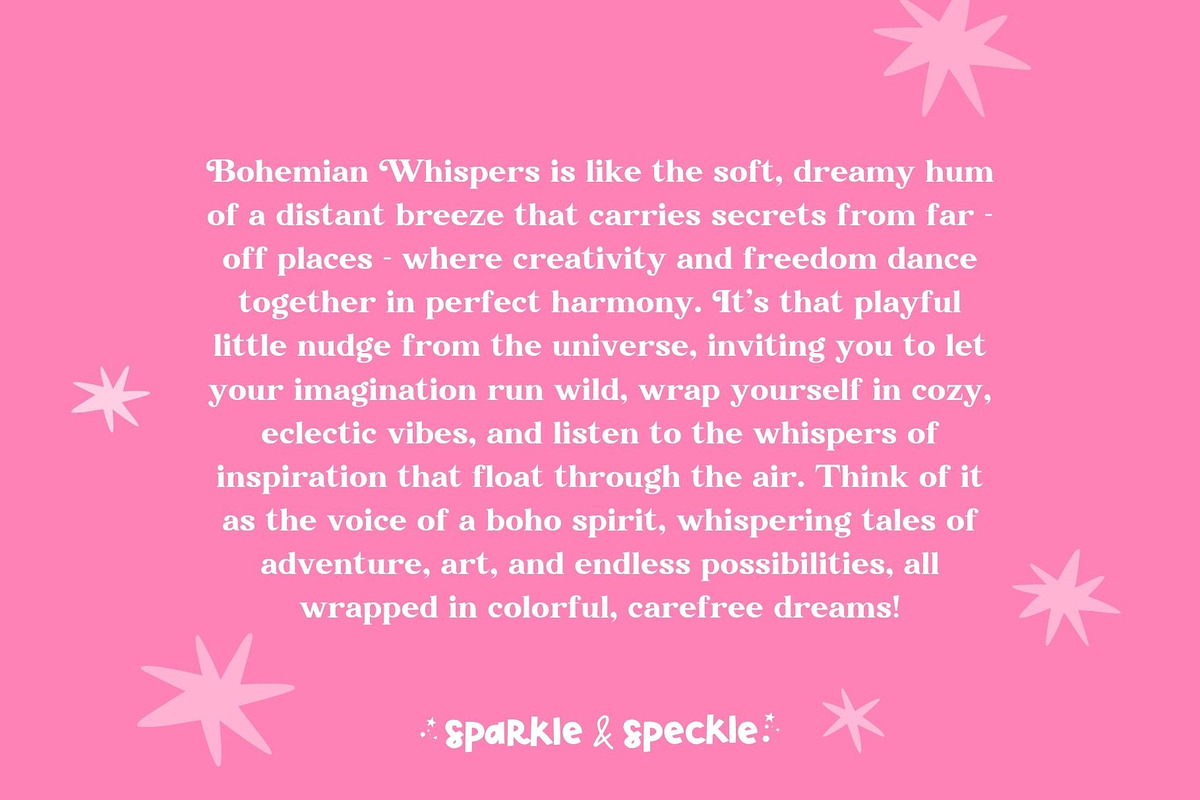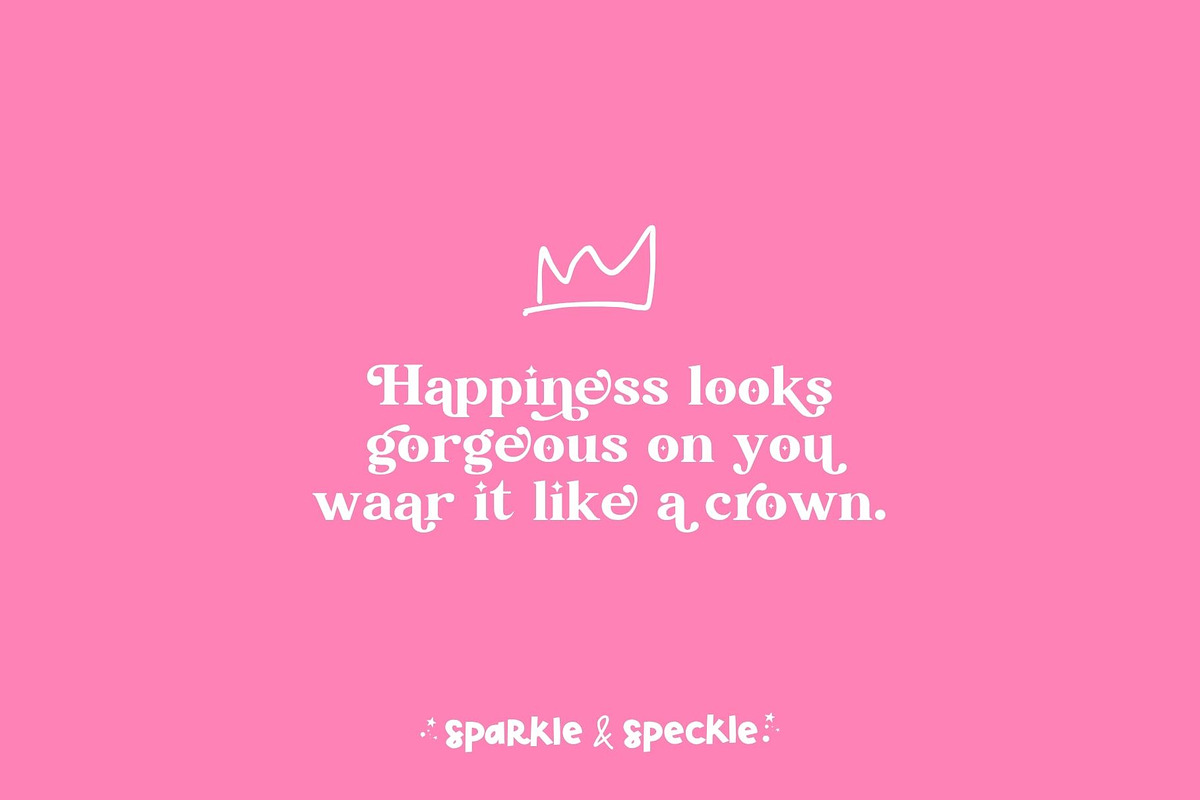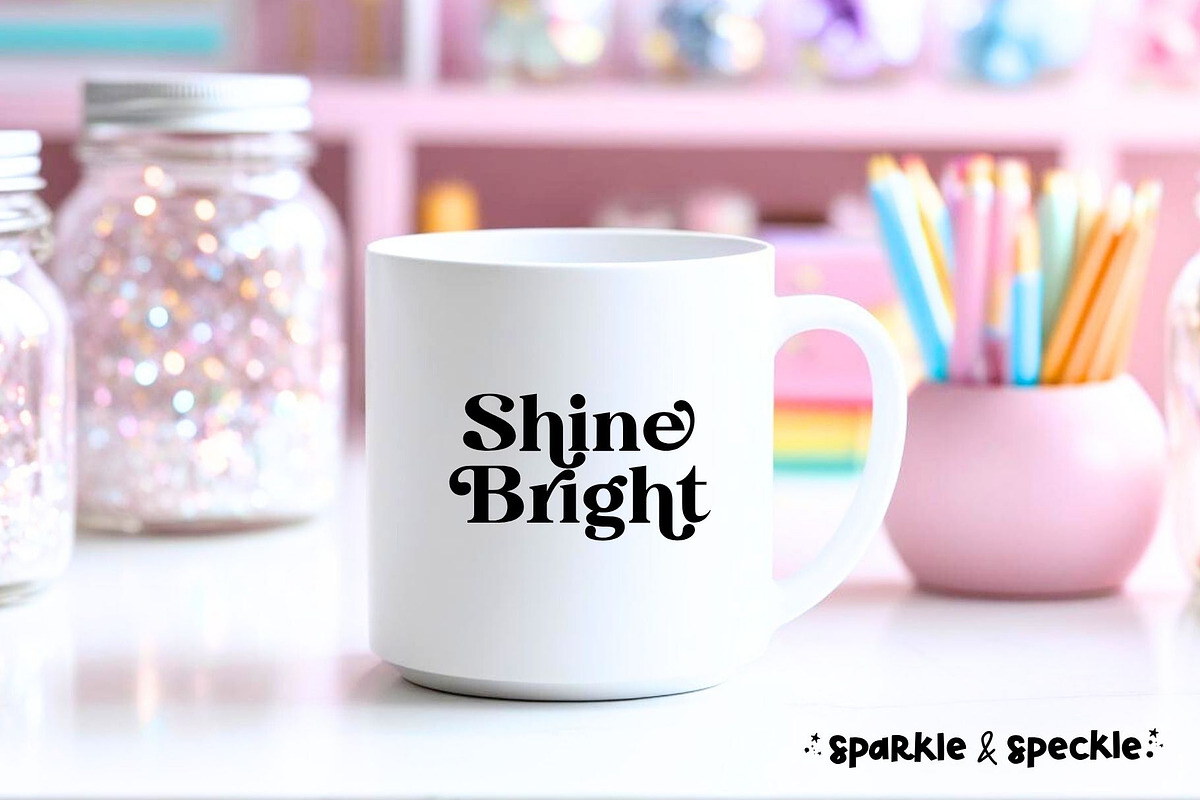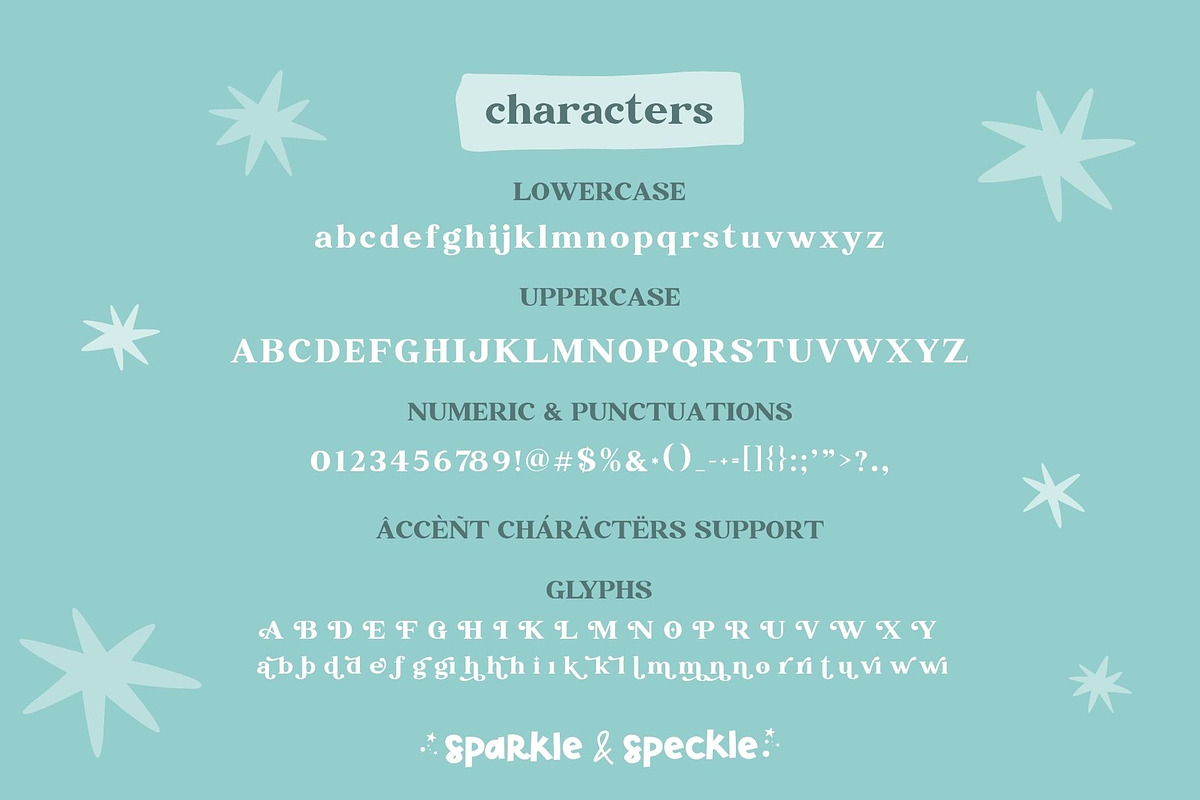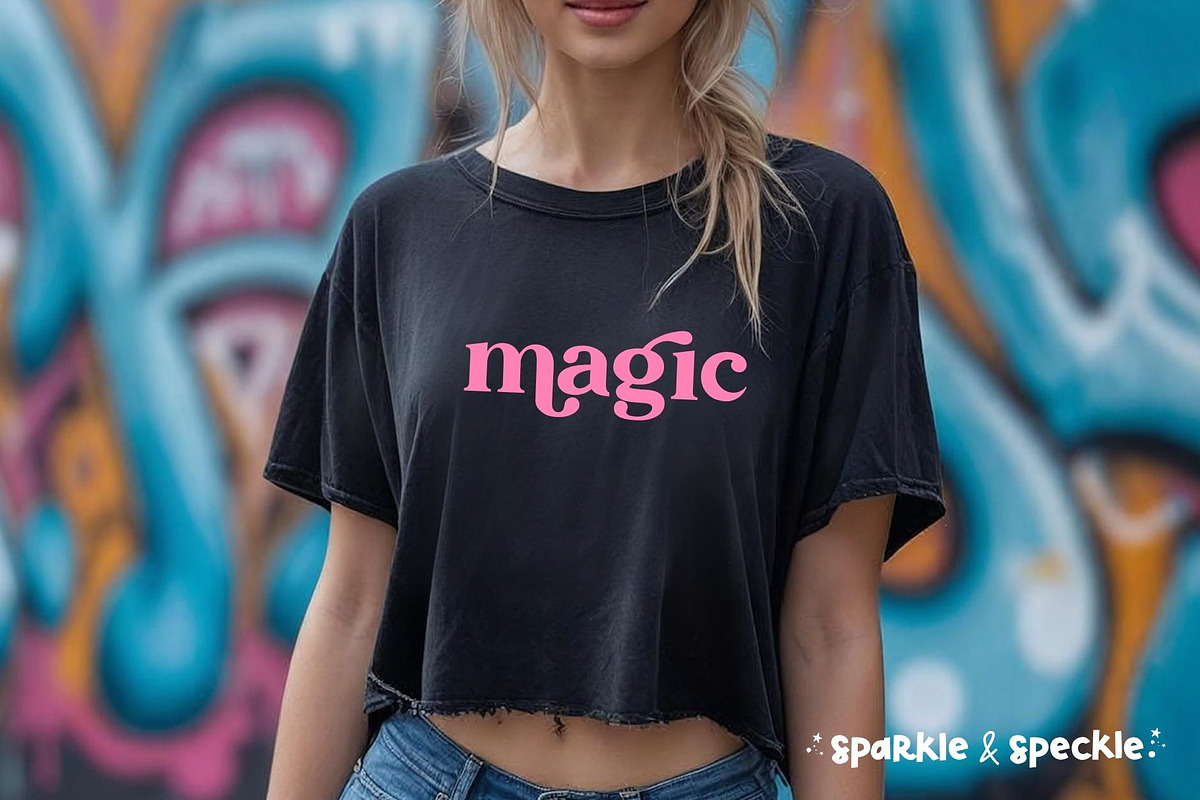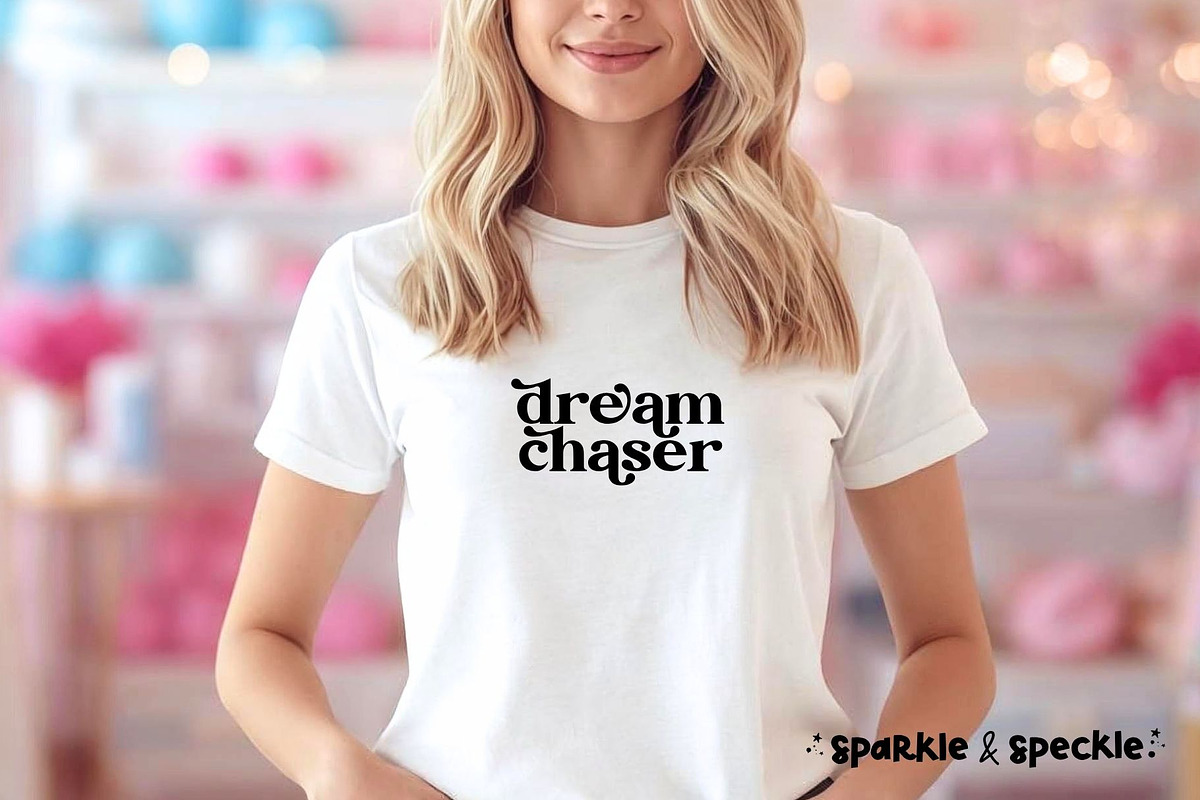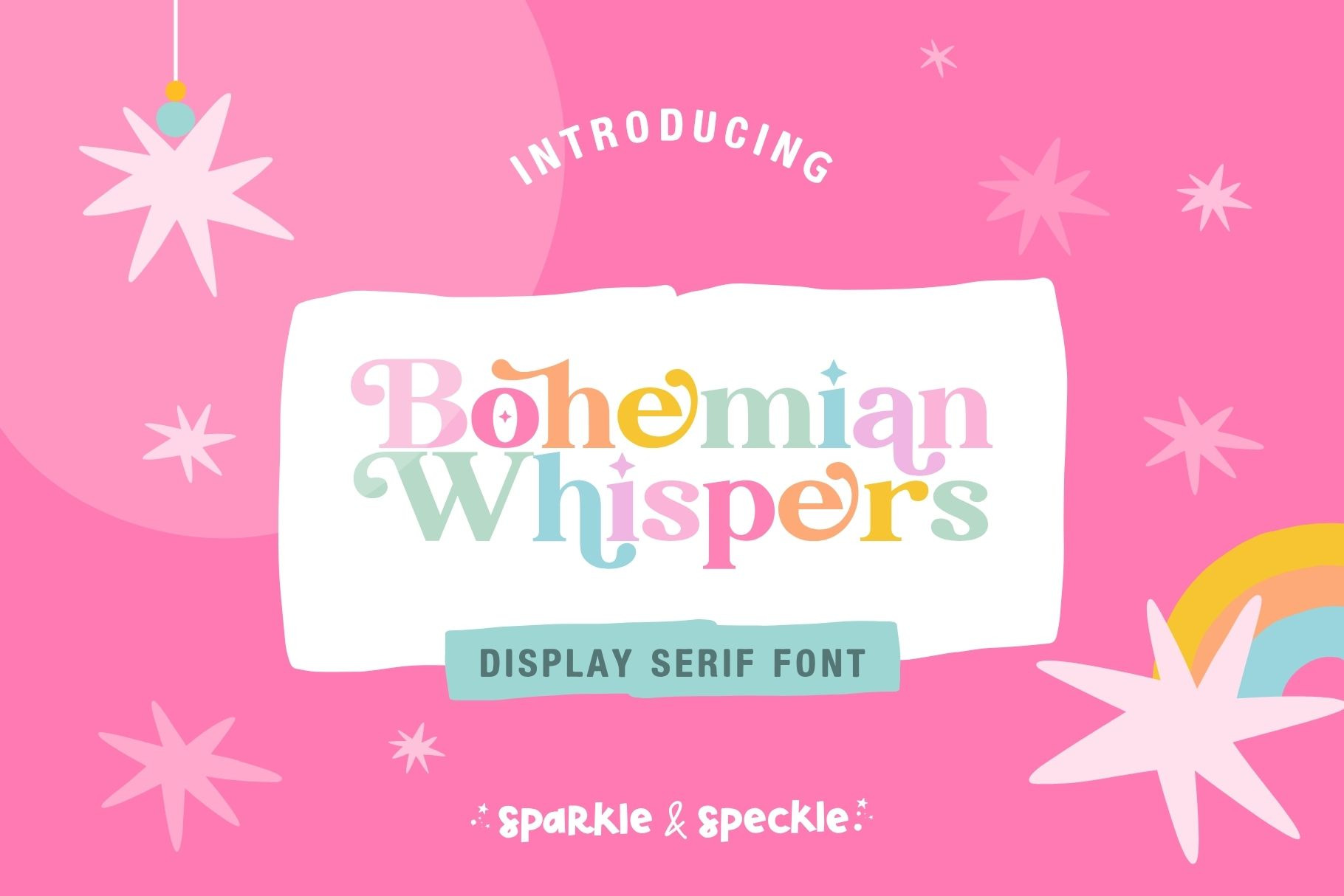
Bohemian Whispers Serif Font
Bohemian Whispers is a bold serif display font with a retro boho aesthetic, designed to bring personality and warmth to your branding.
Featuring smooth curves, decorative swashes, and carefully crafted alternate characters, this font allows you to create expressive, custom typography while maintaining a clean and readable structure. The balance between bold serif forms and playful details gives your designs a distinctive, boutique-style feel.
Bohemian Whispers is perfect for designers and small businesses looking to create a cohesive and recognizable brand identity across logos, packaging, and digital content.
The included alternate characters and glyphs give you flexibility to customize your text and create more unique, elevated designs.
• branding and logo design • boutique and lifestyle brands • beauty and wellness businesses • packaging and product labels • invitations and stationery • social media graphics • handmade and creative businesses
• serif display font • retro-inspired letterforms • decorative swashes and alternates • clean and readable structure • expressive, boutique-style aesthetic • ideal for branding and logos • suitable for print and digital use